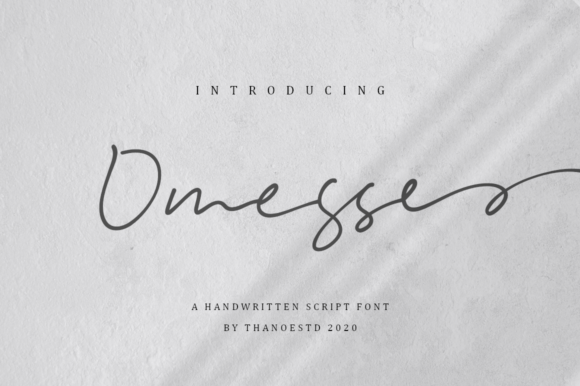
Journey into the enchanting realm of Omesse Font, a mesmerizing handwritten font that whispers tales of love and elegance. With its captivating curves and delicate strokes, Omesse beckons you to express your individuality and creativity in a way that's both timeless and captivating.
Crafted with the utmost care and attention to detail, Omesse Font boasts a wide range of applications, from greeting cards that carry heartfelt messages to headlines that demand attention. Its versatility shines through whether you're designing logos that exude charm, creating invitations that ignite the imagination, or crafting social media posts that leave a lasting impression.
Indulge in the romantic allure of Omesse Font and watch as your words dance across the screen like whispers of affection. This beautiful script font transforms your designs into visual masterpieces, captivating your audience with its undeniable charm.
With Omesse Font, you hold the power to evoke emotions, convey messages with eloquence, and create a lasting impact on your audience. Its enchanting presence will elevate your projects, turning them into expressions of art that resonate with hearts and minds alike.